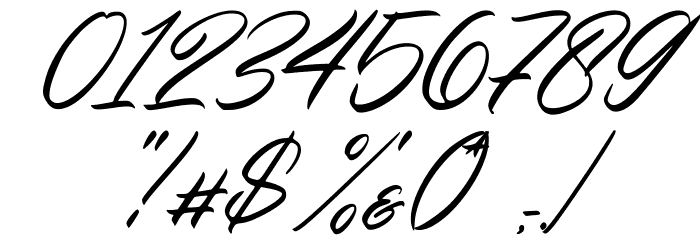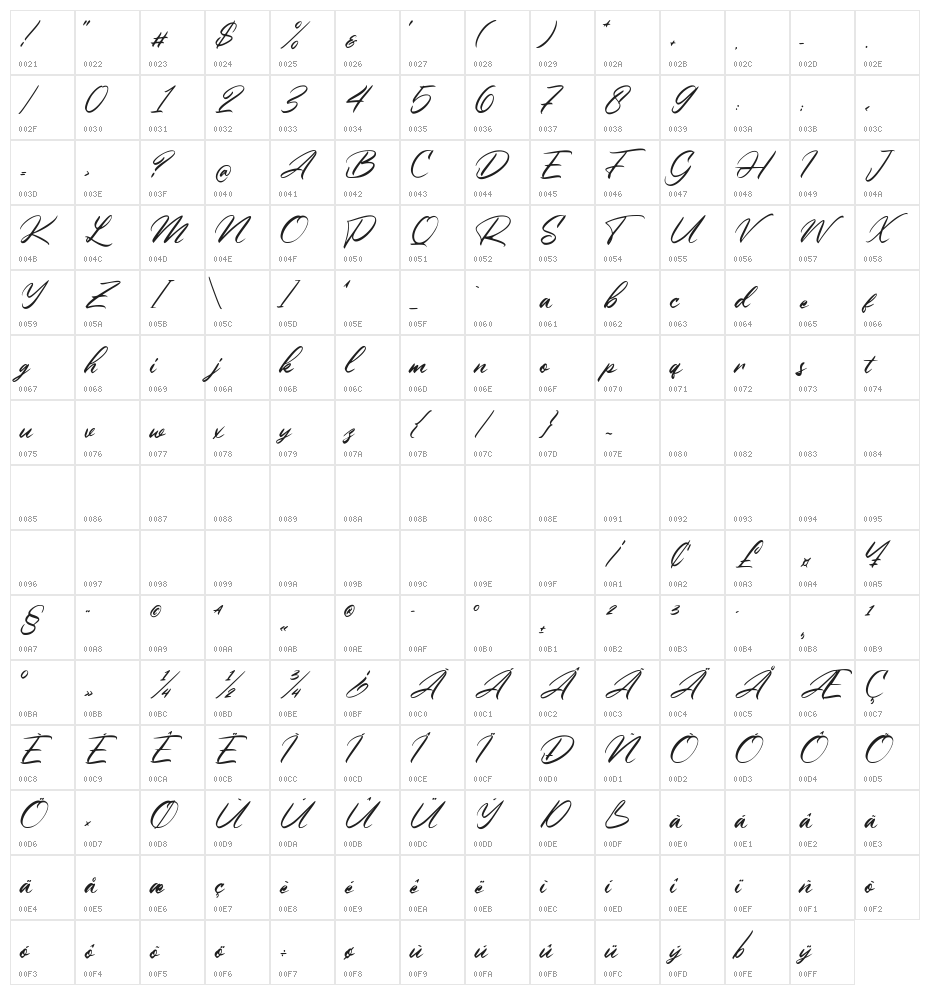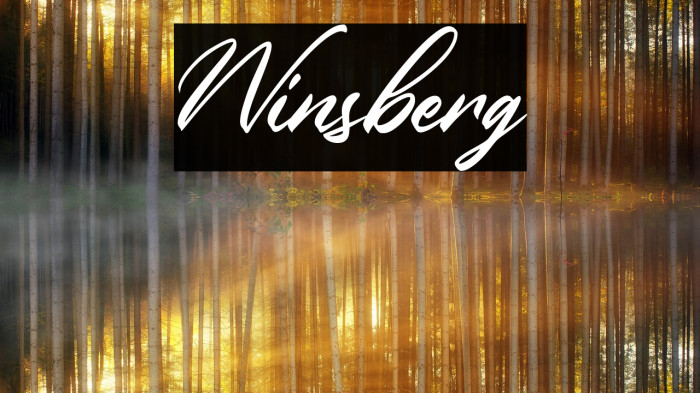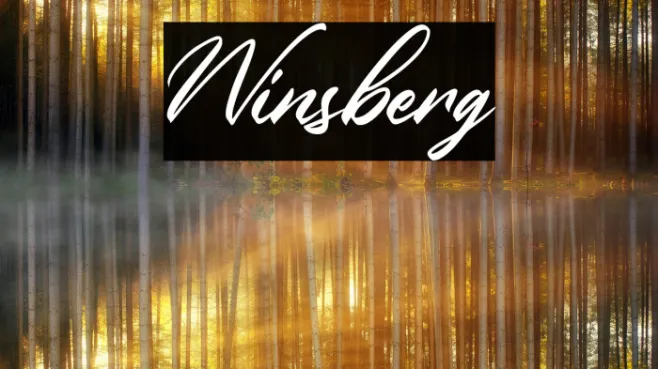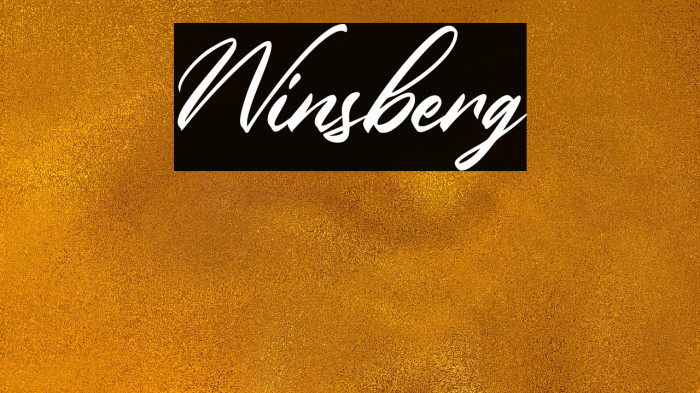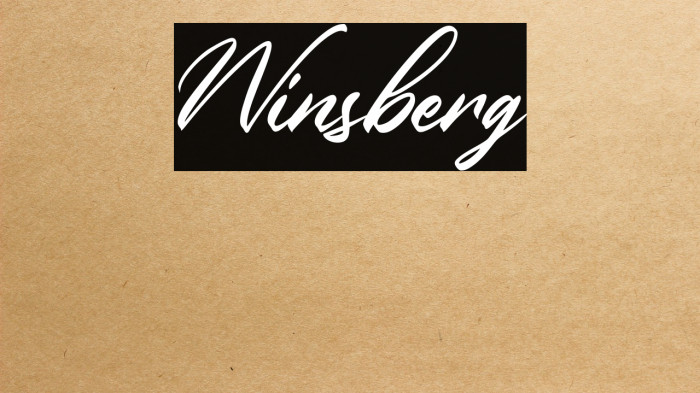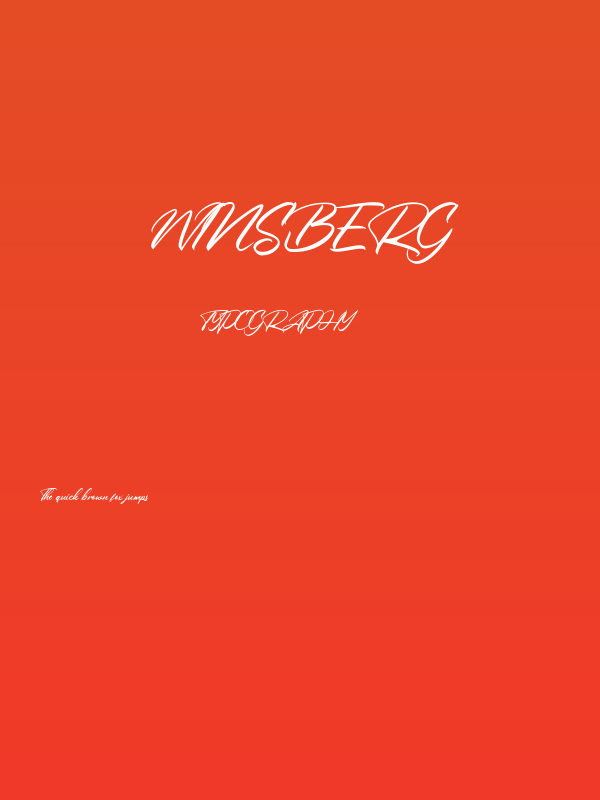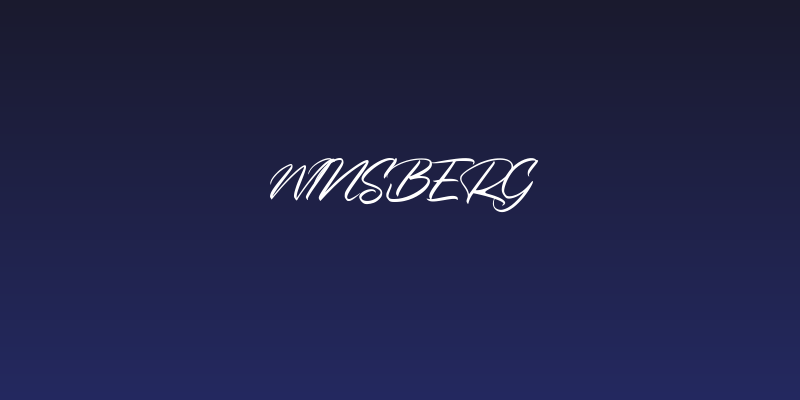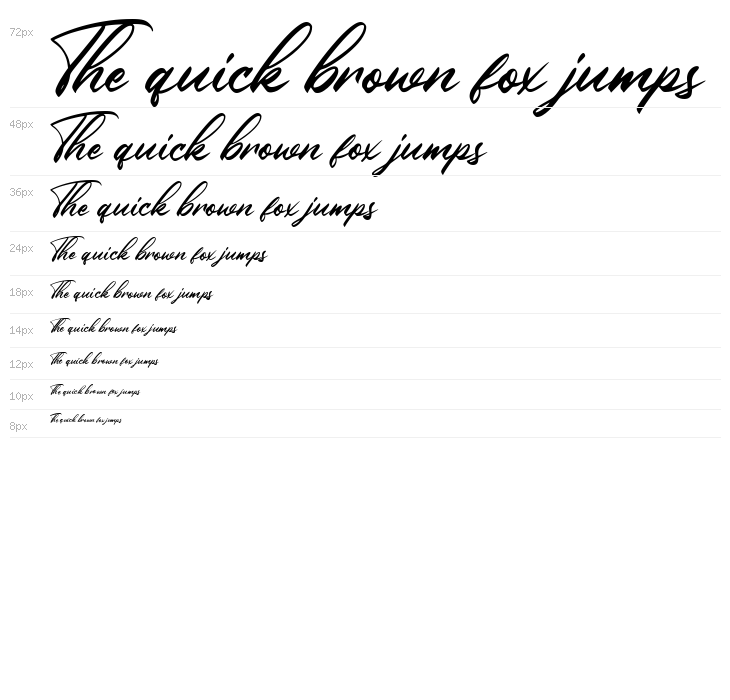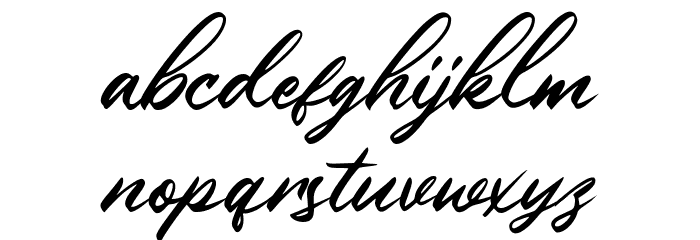
Winsberg Font
Winsberg Description
This elegant script font features a flowing, cursive style with smooth, connected strokes that mimic the fluidity of handwriting. The uppercase letters are bold and sweeping, with dramatic flourishes that add a touch of sophistication. Lowercase letters maintain a consistent slant, enhancing the handwritten appearance. The numerals are stylishly crafted, maintaining the overall cursive theme. Special characters are designed with the same attention to detail, ensuring a cohesive look across all glyphs. This font is ideal for projects that require a personal, elegant touch, such as invitations, branding, and decorative text.